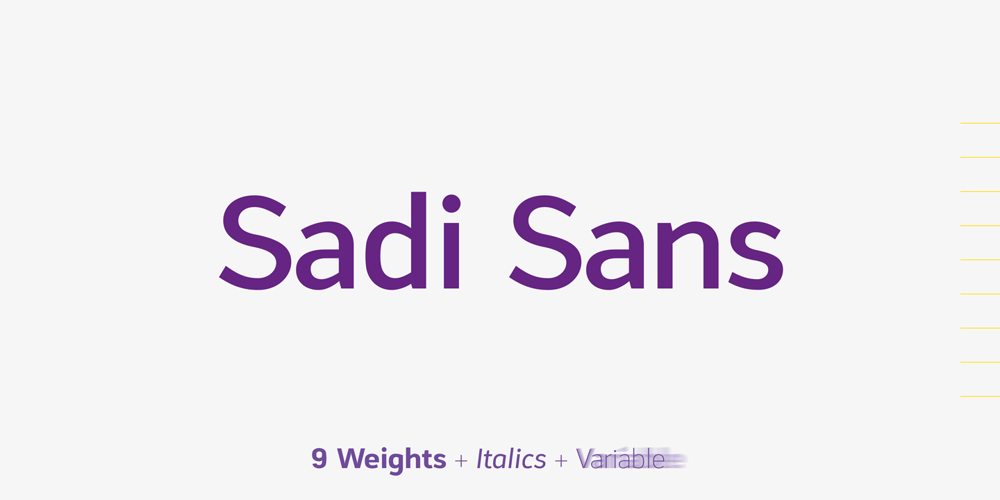
Sadi Sans Font Family was designed by Koray Özbey and published by Koray Özbey. Sadi Sans contains 20 styles and family package options. Sadi Slab is designed to be used on small scales like book texts, newspapers, magazines etc. Also its large counters make the font suitable for digital screens. The anatomy of the typeface gives a formal appearance which is a more fitting choice for subjects like law, finance, medical science etc.Another member of Sadi family is Sadi Slab.